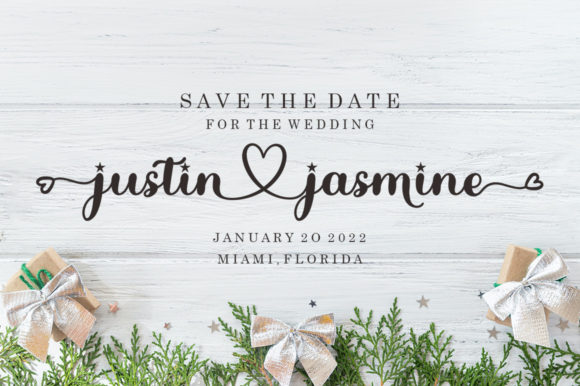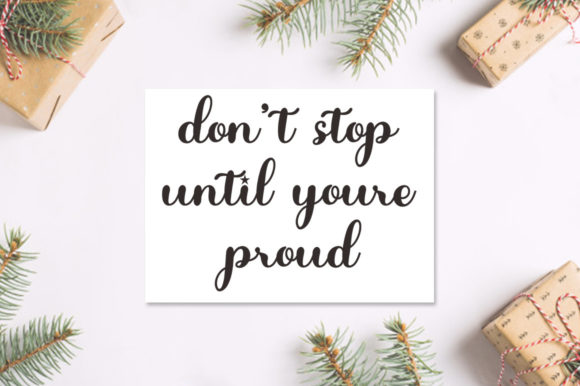
Holly Jolly Font
db-ku.com - Script & Handwritten -- Holly Jolly is a romantic and sweet calligraphy typeface with characters that dance along the baseline. This font is PUA encoded which means you can access all of the amazing glyphs and ligatures with ease!